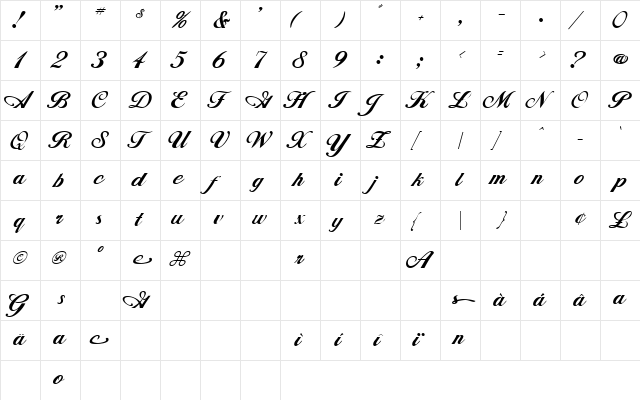
Whimsi Script SSK Regular
Design Context for Whimsi Script SSK Typeface
Whimsi Script SSK flows with the natural rhythm of handwritten lettering, making it ideal for designs that call for warmth and personal expression.
Font Pairing: Combine Whimsi Script SSK with a simple geometric sans for maximum contrast — the tension between flowing curves and clean structure is a classic typographic pairing.
Pro Tip: Pair Whimsi Script SSK with a clean sans-serif for supporting text. The contrast between fluid script and geometric structure creates an elegant typographic hierarchy.